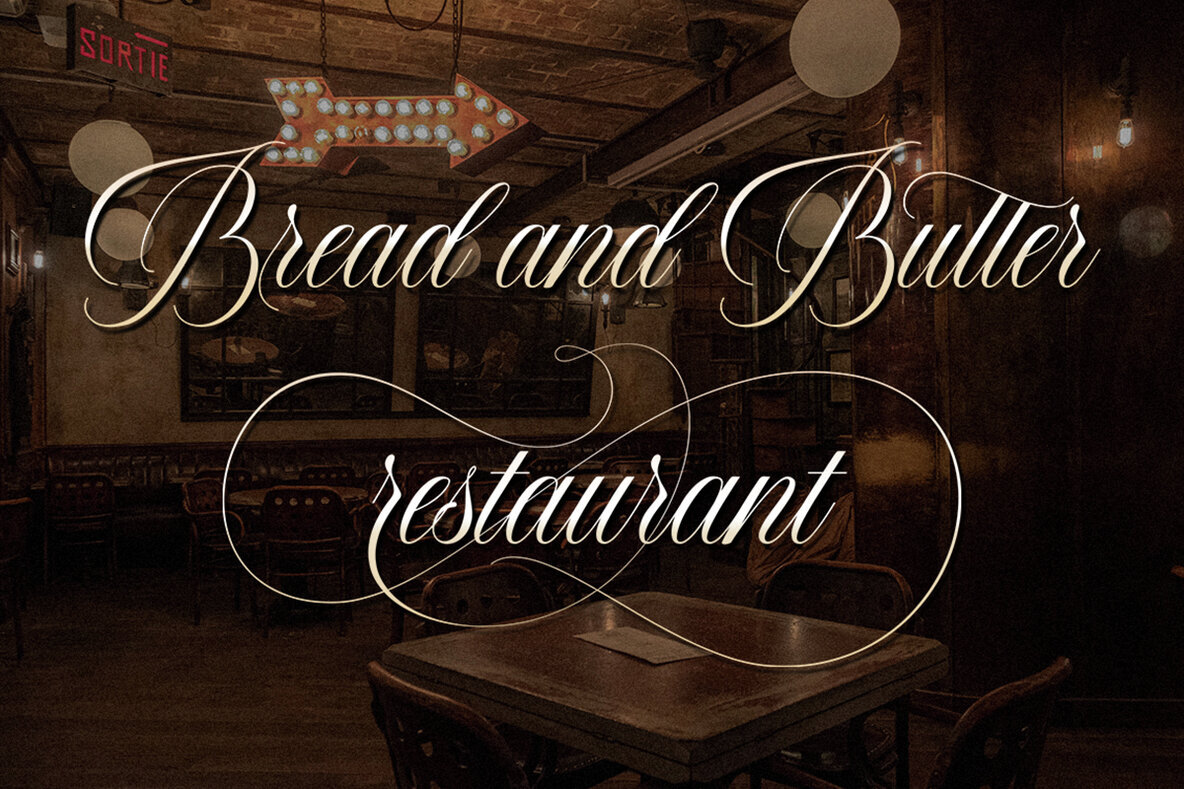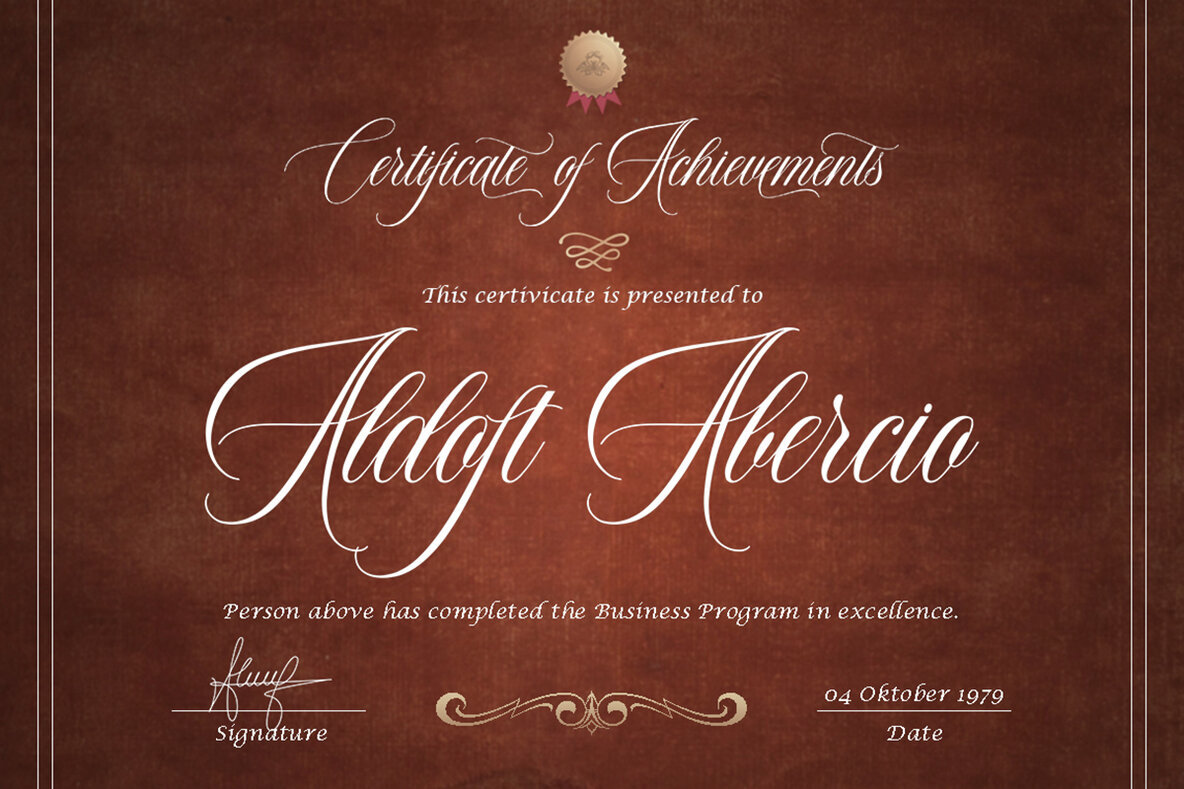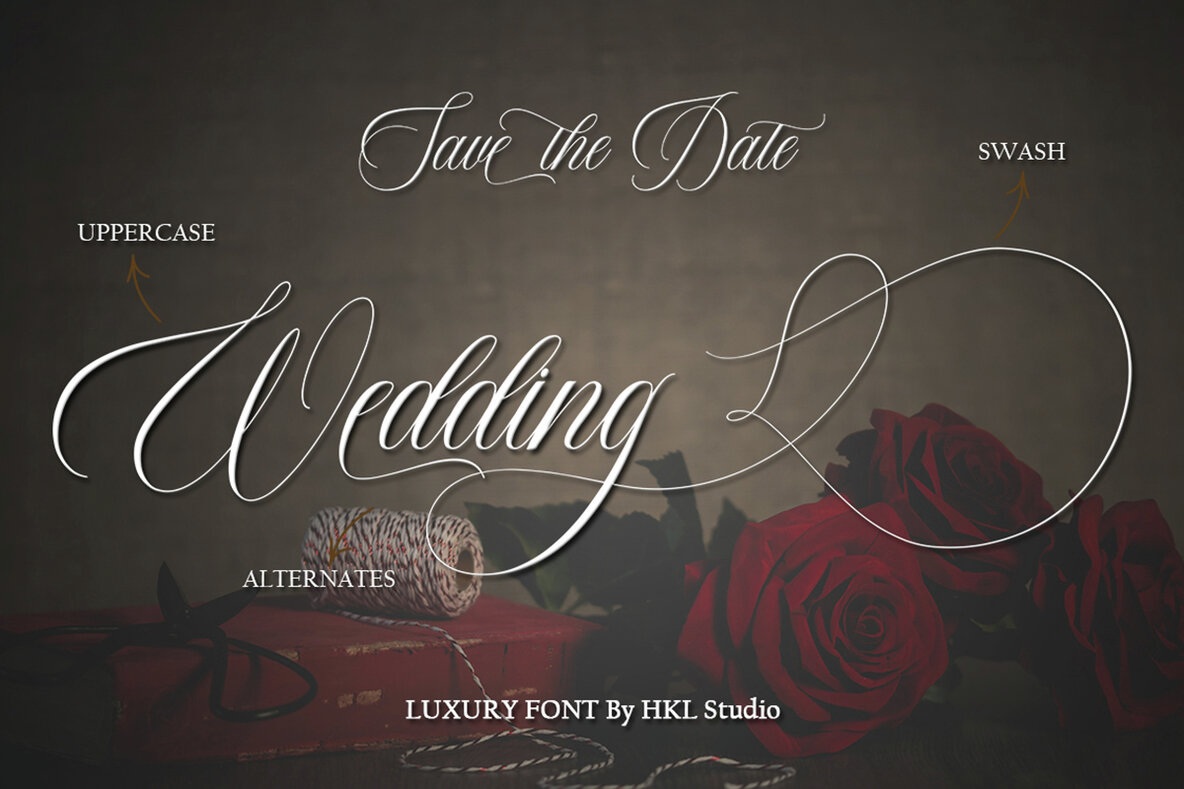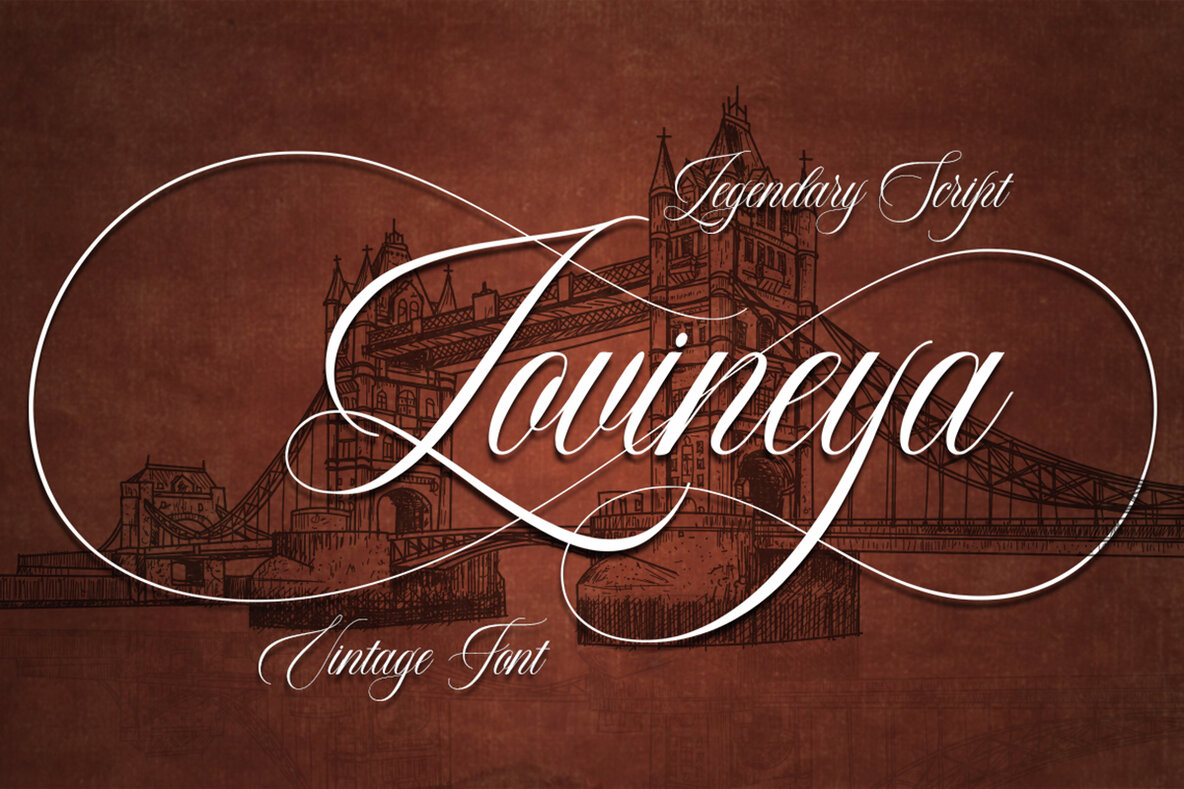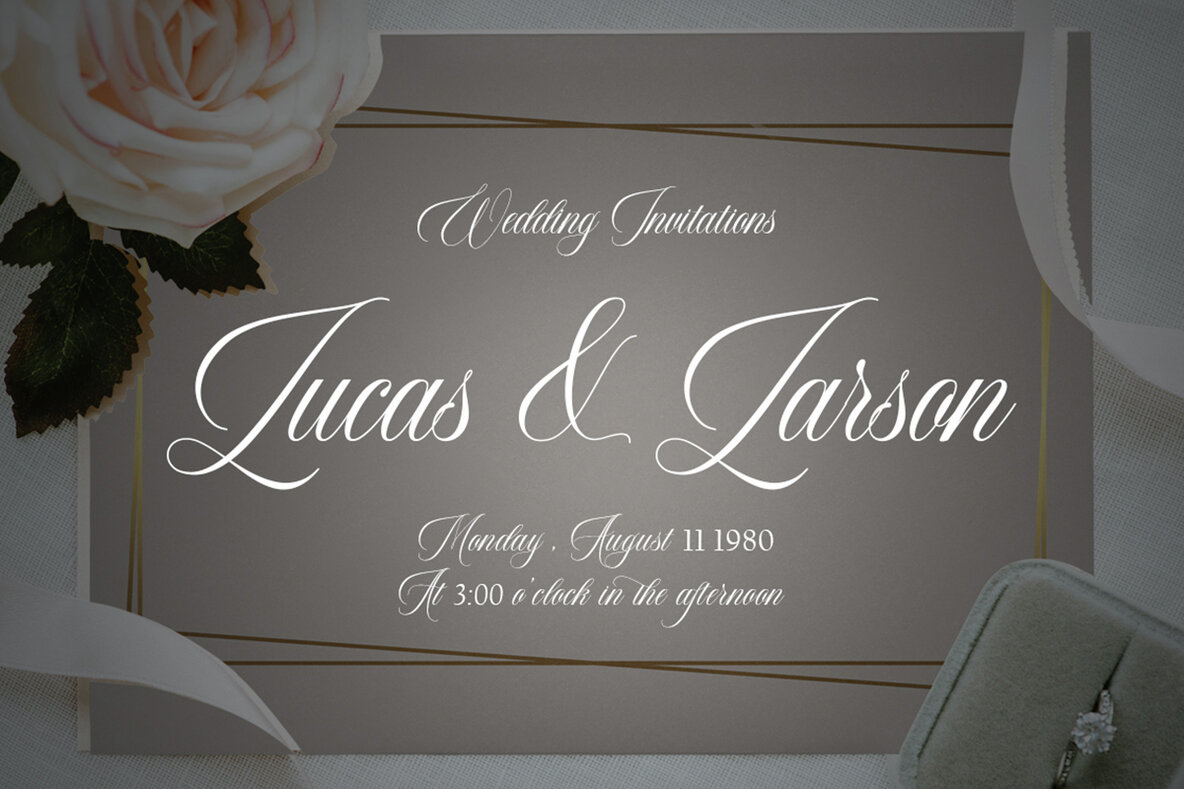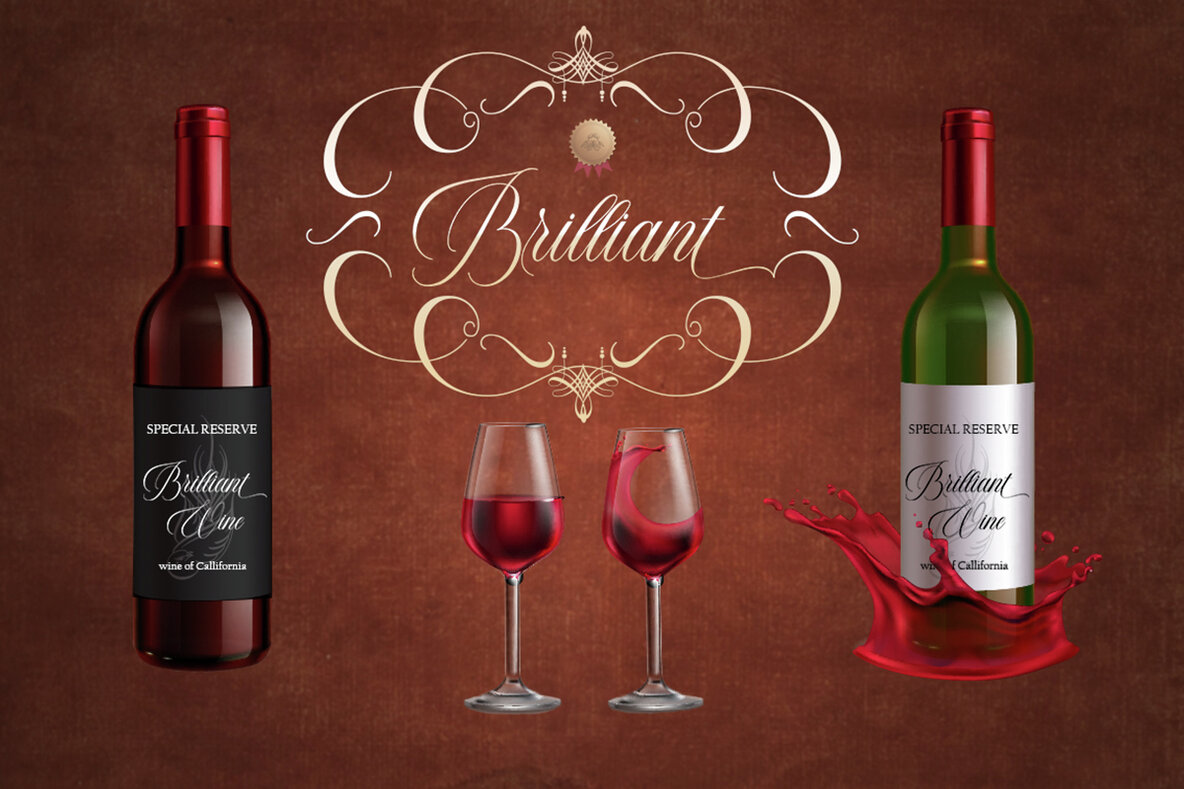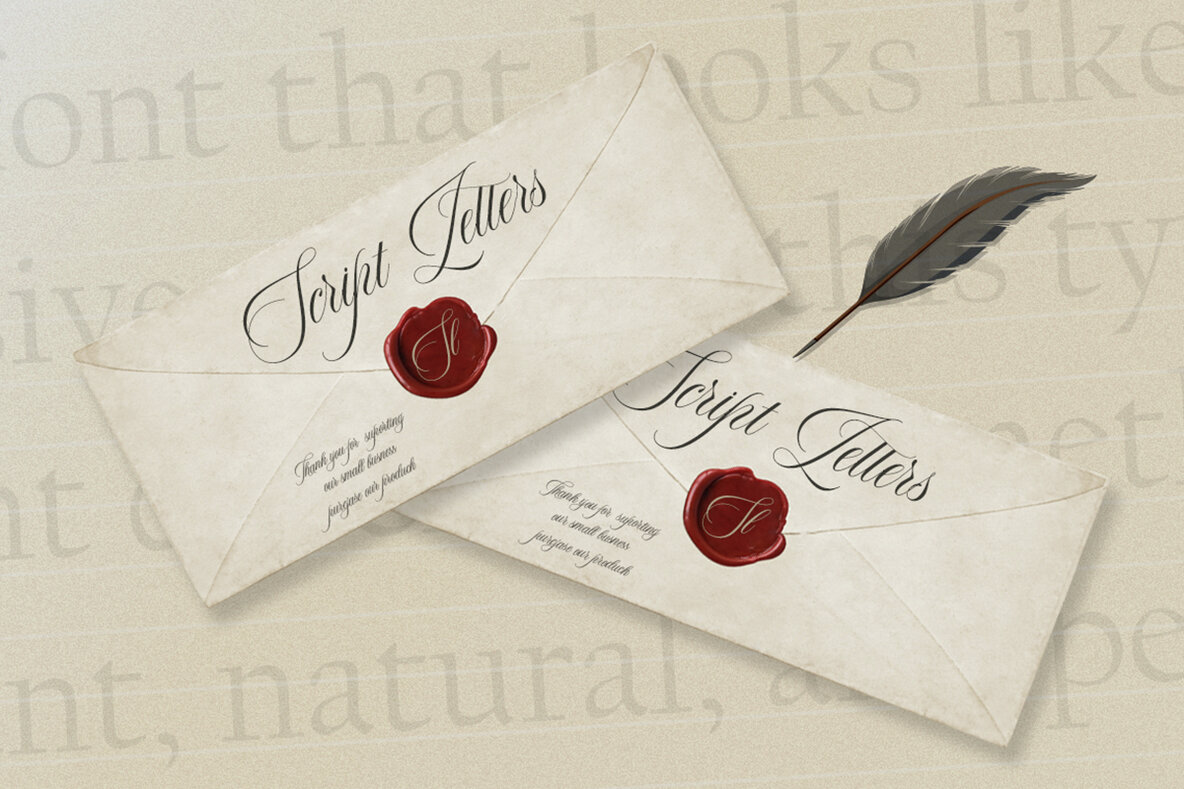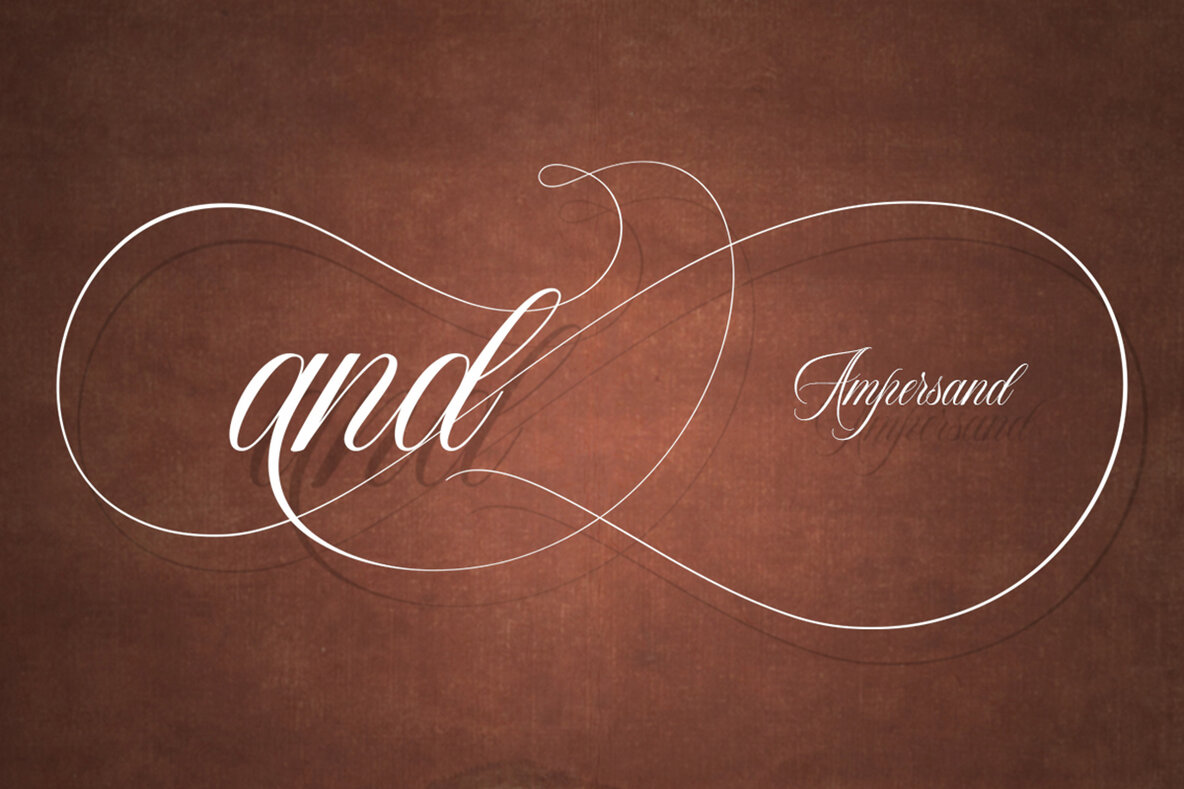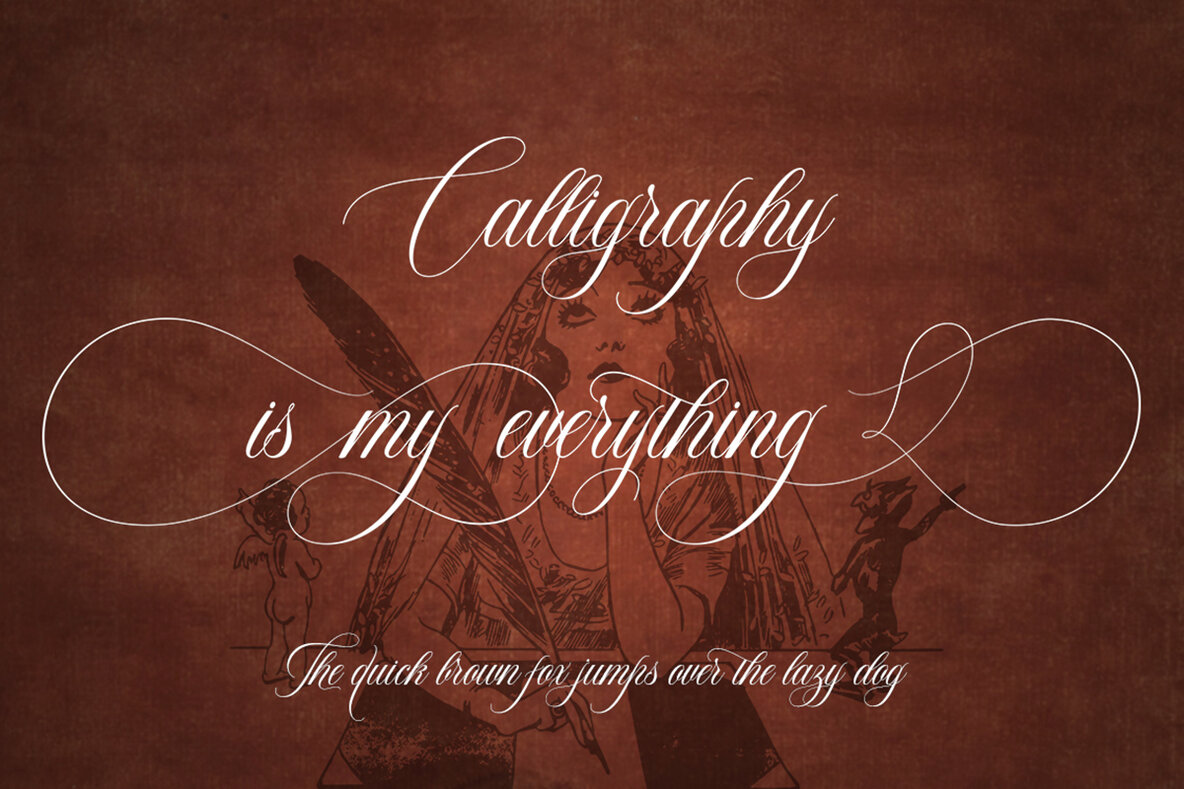
Saverny Font
Saverny
Saverny Script is a vintage calligraphy font designed with a blend of copperplate and hand-lettering styles, perfect for conveying a stylish and elegant feel. This typeface is smooth, clean, and easy to read, ensuring its versatile application in various design projects. Available in both Clean and Aged versions, Saverny Script offers beautiful upper and lowercase letters along with alternative character options. Its refined aesthetic makes it ideal for a range of uses, including logos, wedding invitations, alcohol labels, and romantic cards.
The font supports multiple Western European languages, including English, Danish, Dutch, Estonian, Finnish, French, German, Hungarian, Icelandic, Italian, Norwegian, Polish, Portuguese, Spanish, and Swedish. While best suited for Adobe Illustrator or Photoshop, please note that custom features may not work in Microsoft Word. Saverny Script's combination of elegance and practicality offers designers a remarkable tool for creating memorable and sophisticated designs.